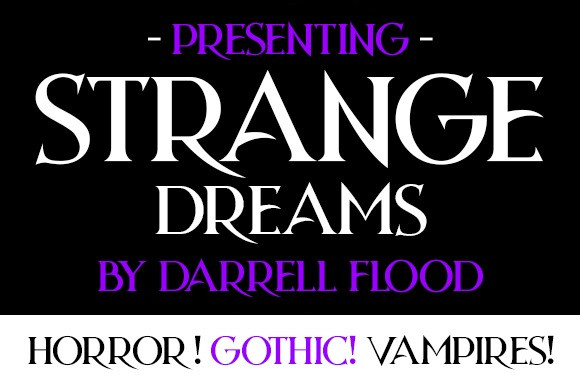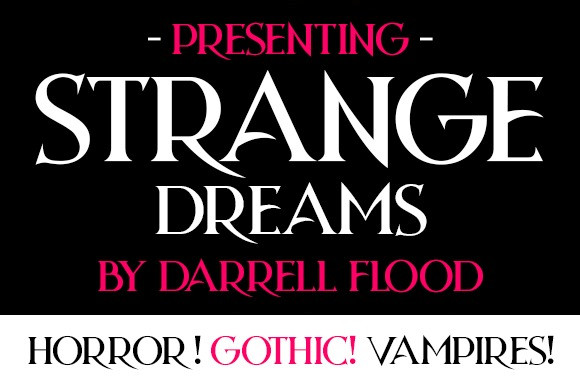
Strange Dreams Font
Strange Dreams Font – A stylish, expressive serif typeface, with long curves and unusual curves. Perfect for gothic, horror and Halloween themes!